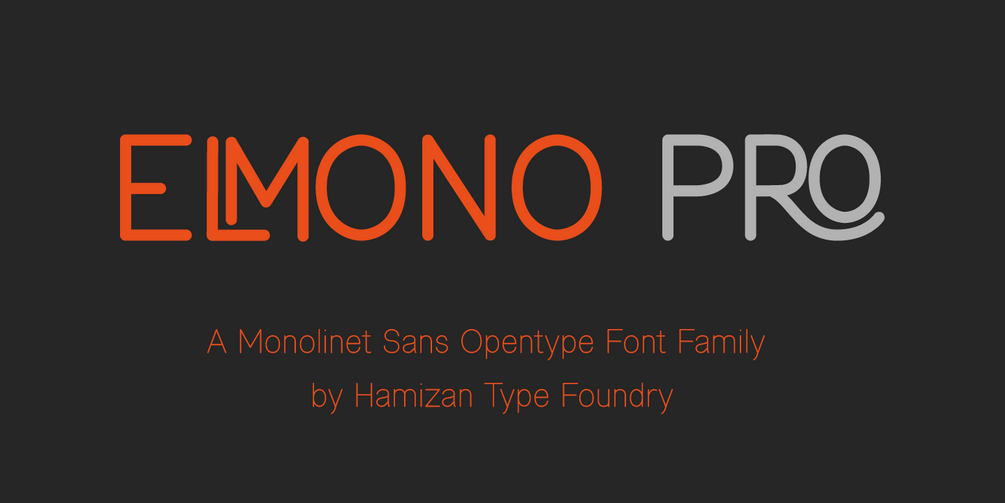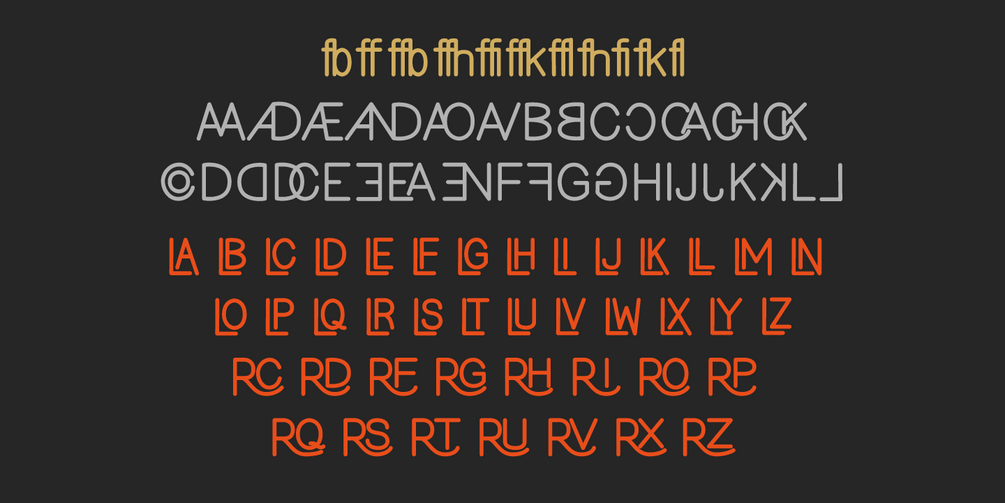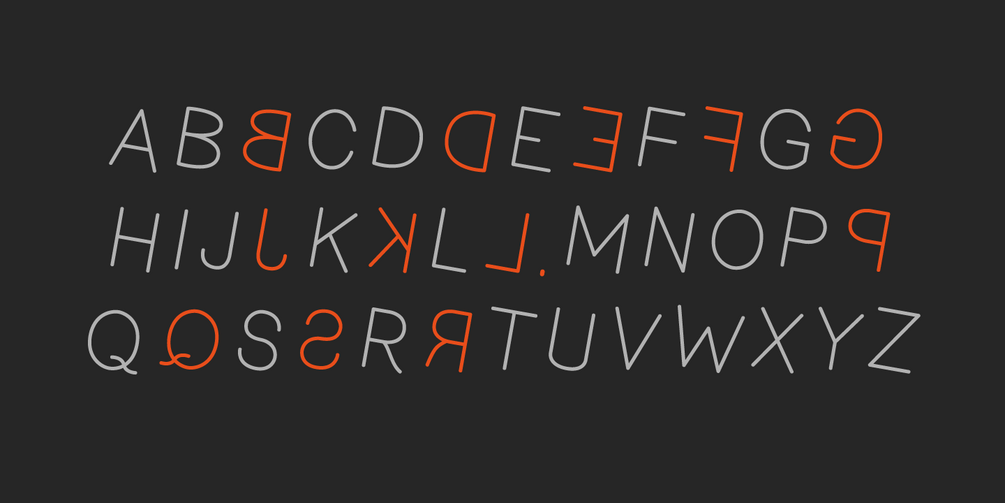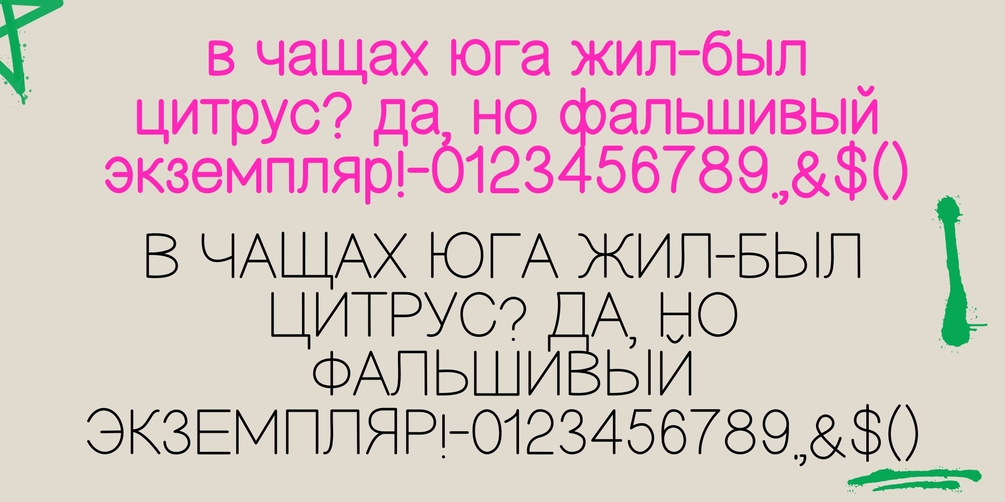
ELMONO PRO
Elmono Pro is Monolinet font which is make with natural movement, elegant for any other needed
Elmono Pro Features:
• 3 Style (Thin, Light and Regular)
• 403 glyphs in each style
• 65 Ligatures
• 15 Alternates
• Support for more than 74 languages: extended Latin, extended Cyrillic
• Belarusian, Bosnian, Bulgarian, Chechen, Macedonian, Russian, Serbian, Afrikaans, Albanian, Asu, Basque, Bemba, Bena, Breton, Catalan, Chiga, Cornish, Danish, Dutch, English, Estonian, Faroese, Filipino, Finnish, French, Friulian, Galician, German, Gusii, Indonesian, Irish, Italian, Kabuverdianu, Kalenjin, Kinyarwanda, Luo, Luxembourgish, Luyia, Machame, Makhuwa-Meetto, Makonde, Malagasy, Manx, Morisyen, North, Ndebele, Norwegian, Bokmål, Norwegian, Nynorsk, Nyankole, Oromo, Portuguese, Quechua, Romansh, Rombo, Rundi, Rwa. Samburu, Sango, Sangu, Scottish, Gaelic, Sena, Shambala, Shona, Soga, Somali, Spanish, Swahili, Swedish, Swiss, German, Taita, Teso, Uzbek (Latin), Volapük, Vunjo, Zulu.